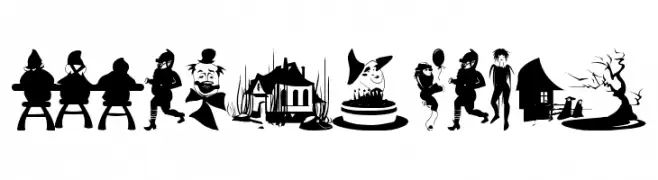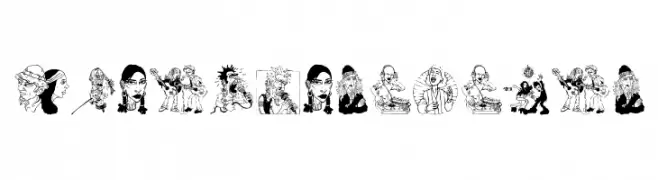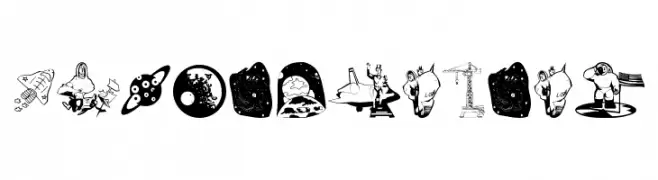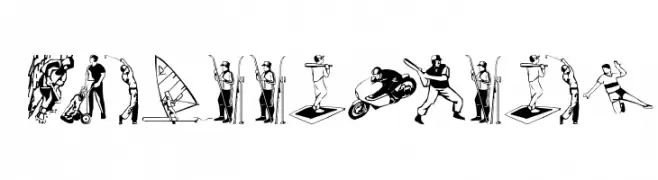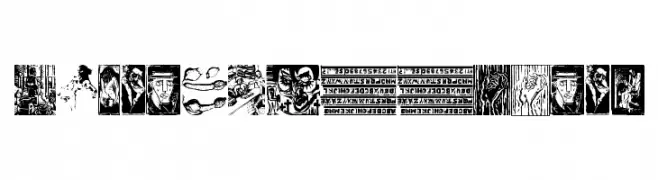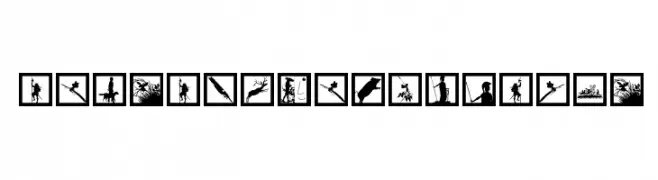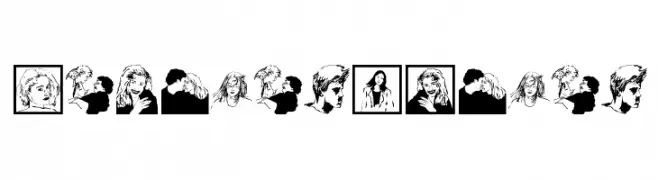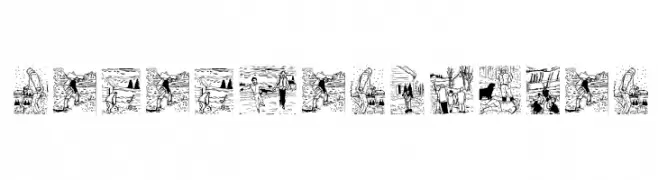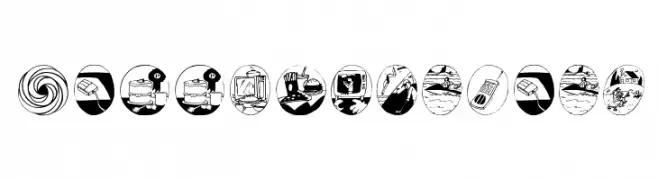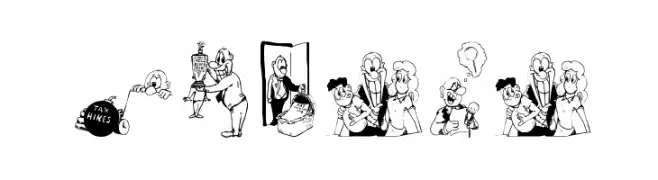
Whimsical pictorial dingbats with storybook and fantasy themes.
Cartoonish, music-themed decorative font with illustrated characters.
Cartoonish space-themed dingbat illustrations.
Illustrative dingbat font depicting outdoor sports.
A woodcut-inspired illustrative display font with each glyph as a unique artwork.
A collection of intricate silhouette illustrations, not a traditional font.
An artistic, pictorial font with each character as a unique illustration.
Ornate, illustrative font using vintage medical and anatomical artwork.
Comic-inspired dingbat font with retro illustrations for each character.
A whimsical collection of bold silhouette designs in square frames.
Illustrative display font using human figures as glyphs.
A decorative font with intricate, culturally inspired illustrations for each character.
An artistic font with each letter formed by detailed illustrations of people in various activities.
A collection of linocut-style illustrations, each character is a unique artwork.
A pictorial winter-themed display font with hand-drawn illustrations for each character.
A pictorial, cartoon-style decorative font with unique illustrations for each character.
Cartoonish, illustrated font with each character as a unique drawing.
A retro-themed pictorial dingbat font with vintage illustrations.
Ornamental font with bird and nature silhouette illustrations.
Illustrative display font with neighbor-themed scenes in each glyph.
An artistic display font featuring intricate illustrations for each character.
A playful dingbat font featuring hand-drawn illustrations for each character.
Whimsical animal-themed dingbat font with playful illustrations.
Illustrative display font with Native American cultural motifs.
A playful, illustrative display font with unique pictorial glyphs.
Illustrative, ethnographic font with cultural motifs and figures.
Ornate dingbat font with illustrations of traditional arts and crafts.
A whimsical dingbat font with abstract faces and artistic illustrations.
Farm-themed dingbat font with detailed rural illustrations.
Comic-style, alien-themed decorative font with illustrated glyphs.
A narrative, illustrative display font featuring urban-themed sketches for each character.
Cartoonish, hand-drawn font with each letter as a comic illustration.
Illustrative, character-based font depicting peace and war figures.
Artistic manga-style illustrations form each character.
A dingbat font with diverse bird illustrations in various styles.